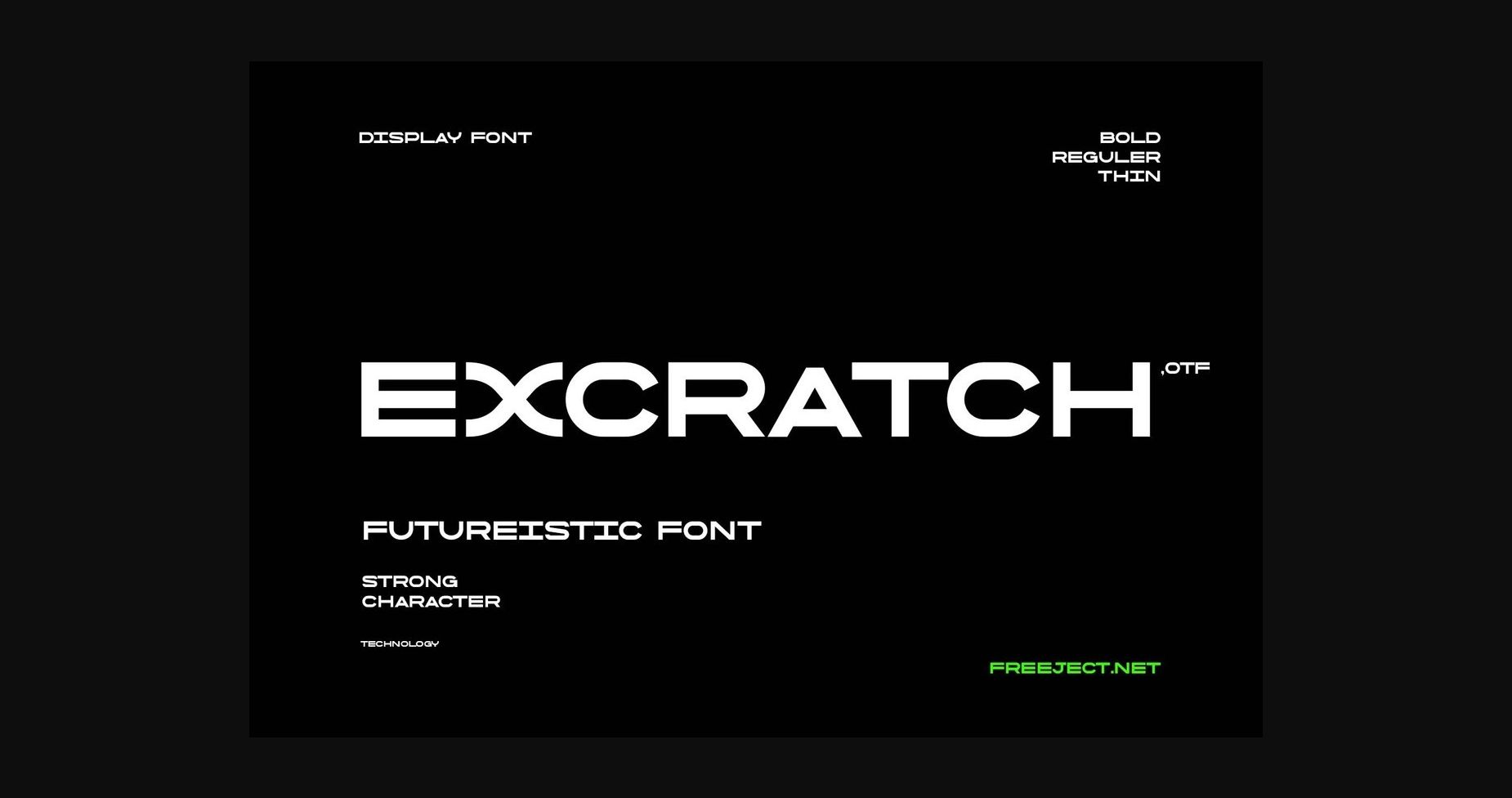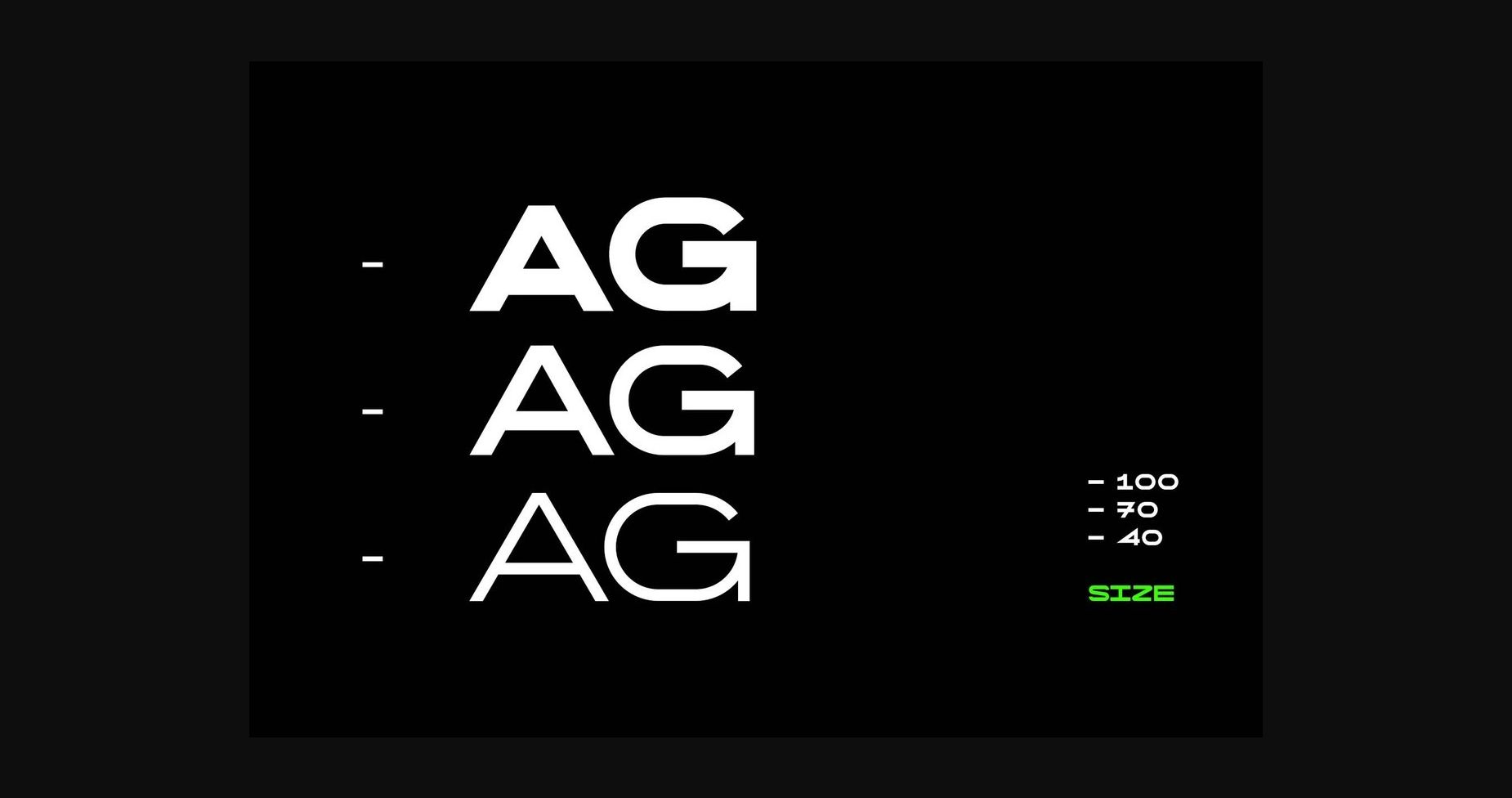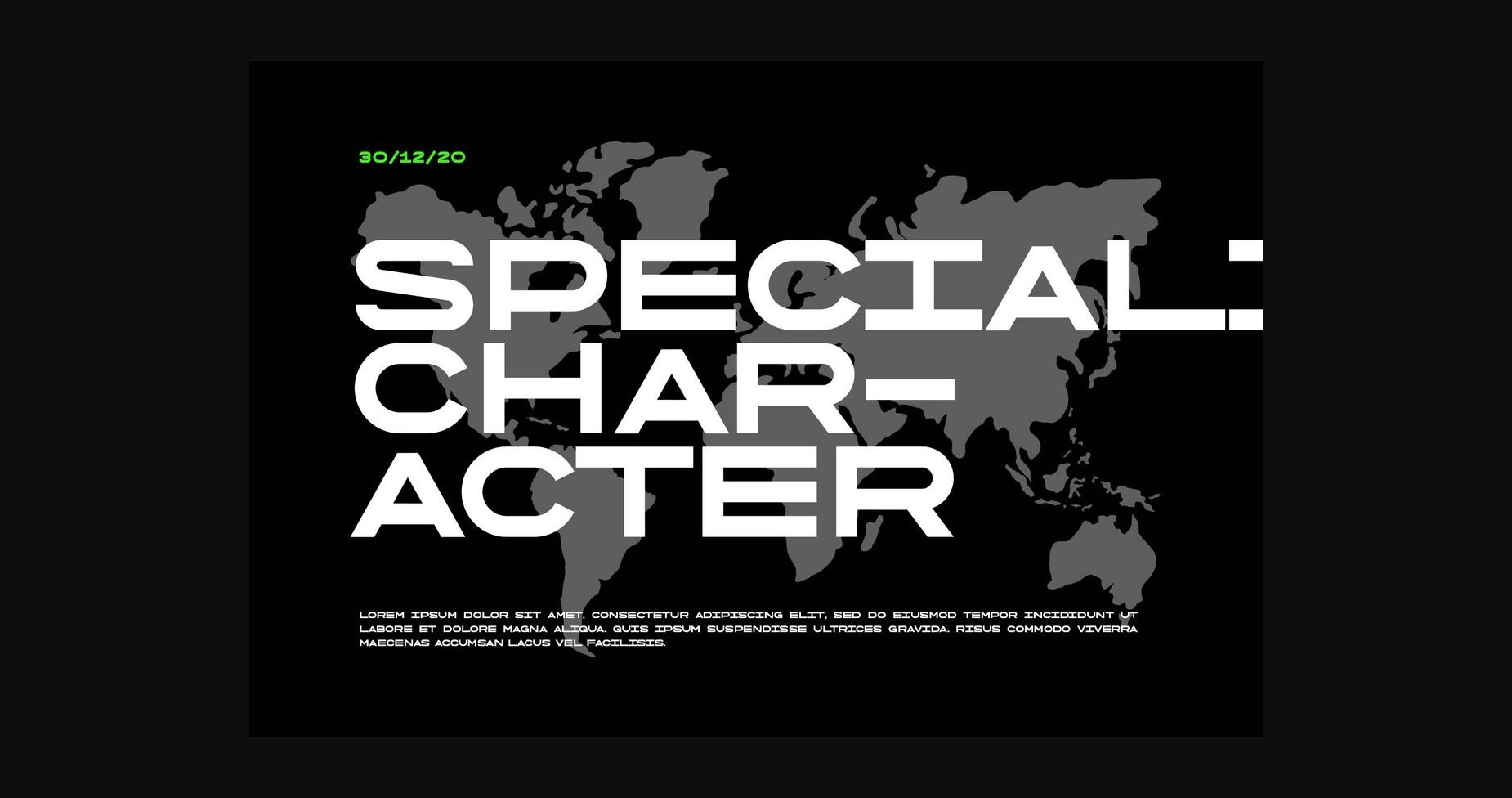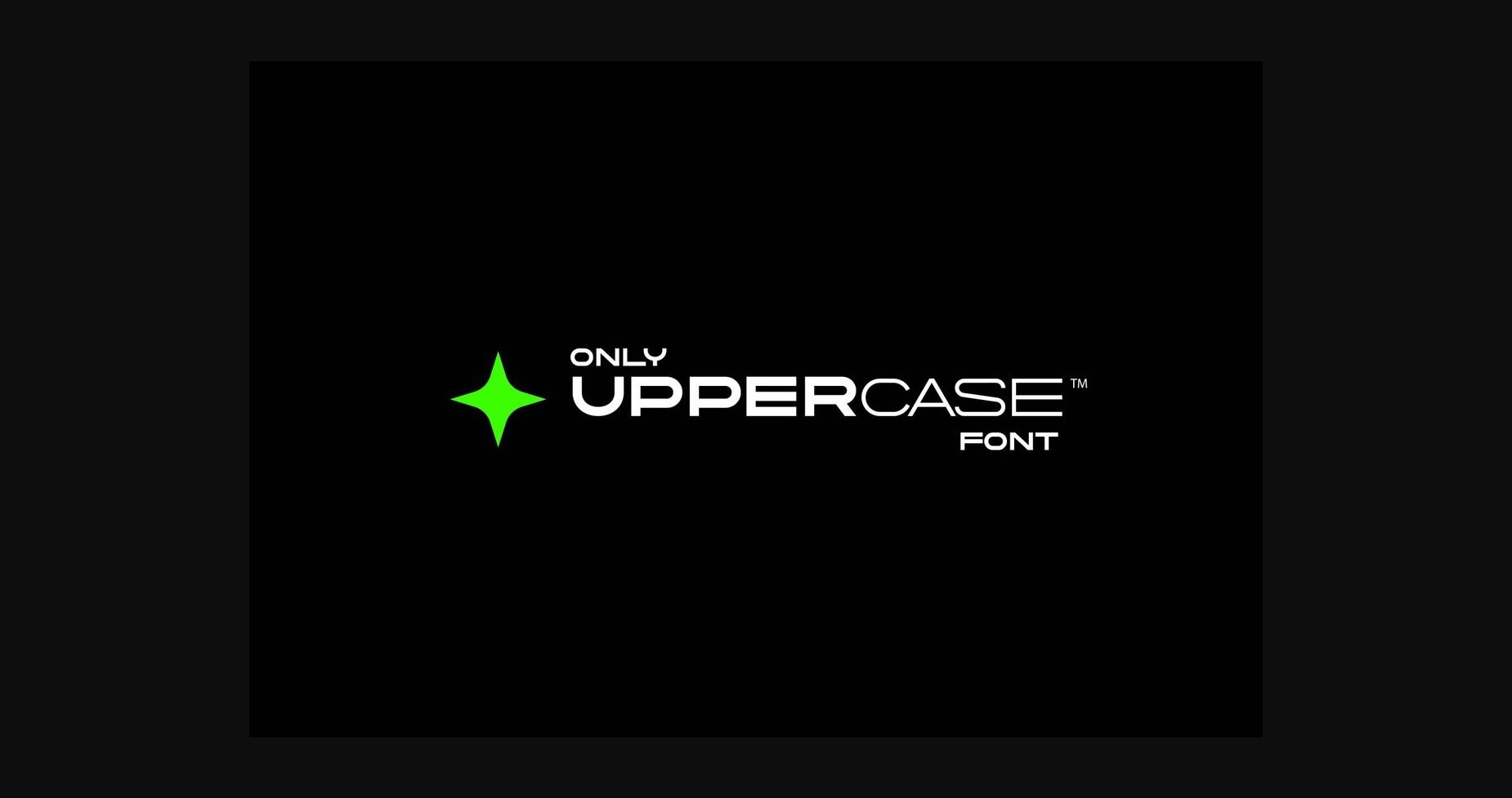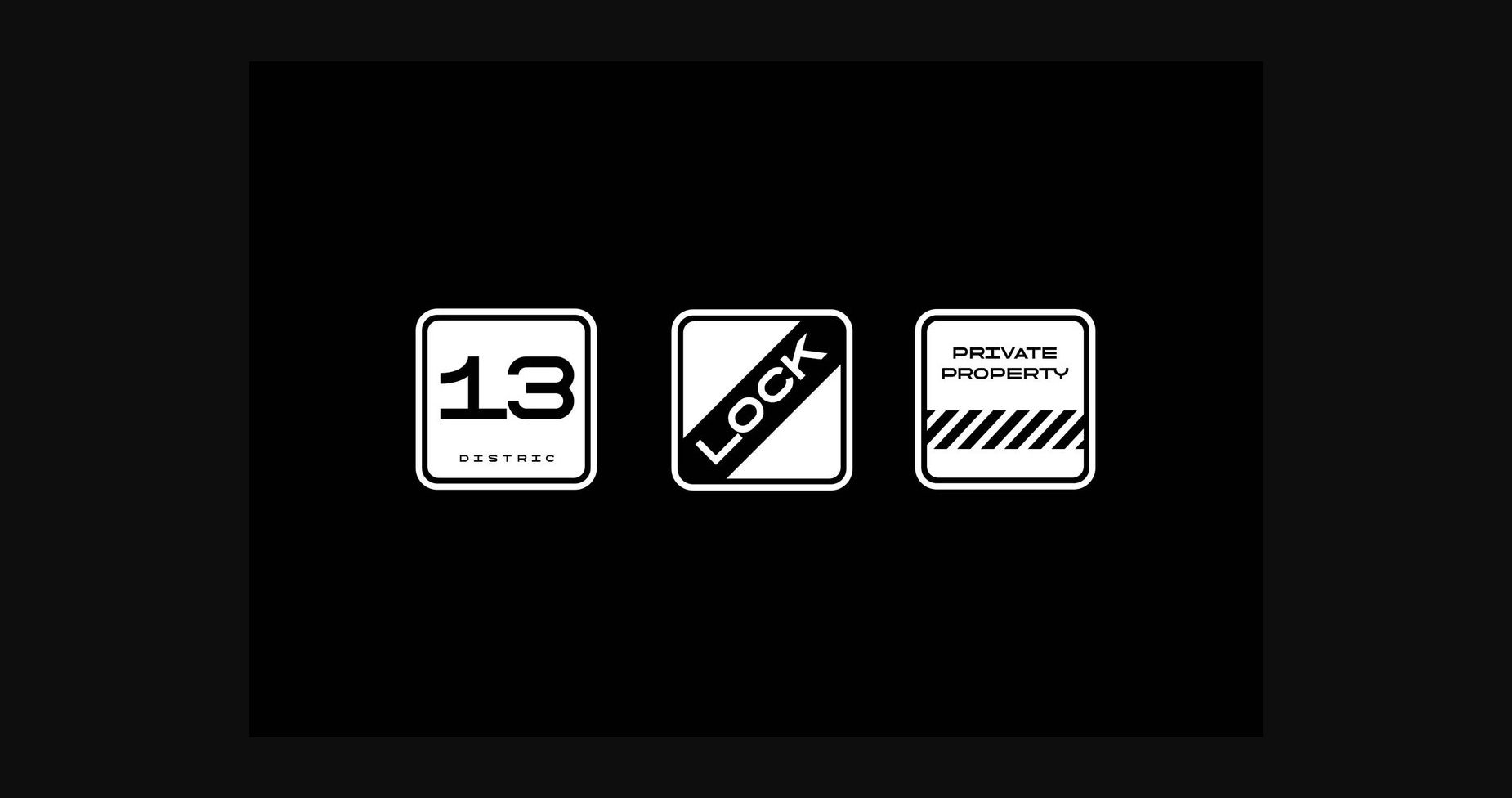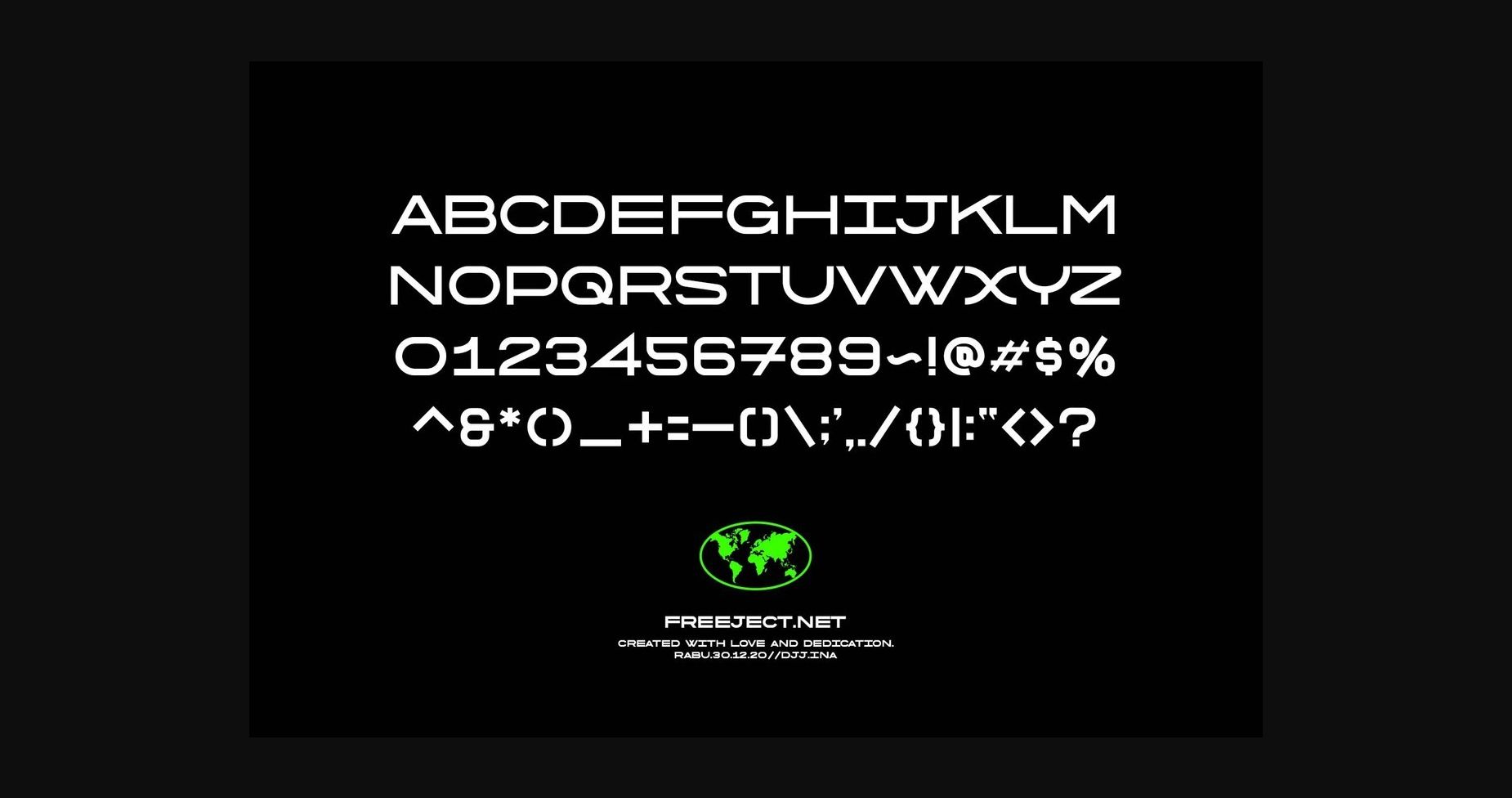
Excratch is a futuristic sans serif font that takes on the theme of advanced technology. The body of this font is square with a little curve on each side, inspired by spaceship construction on pop culture depictions.